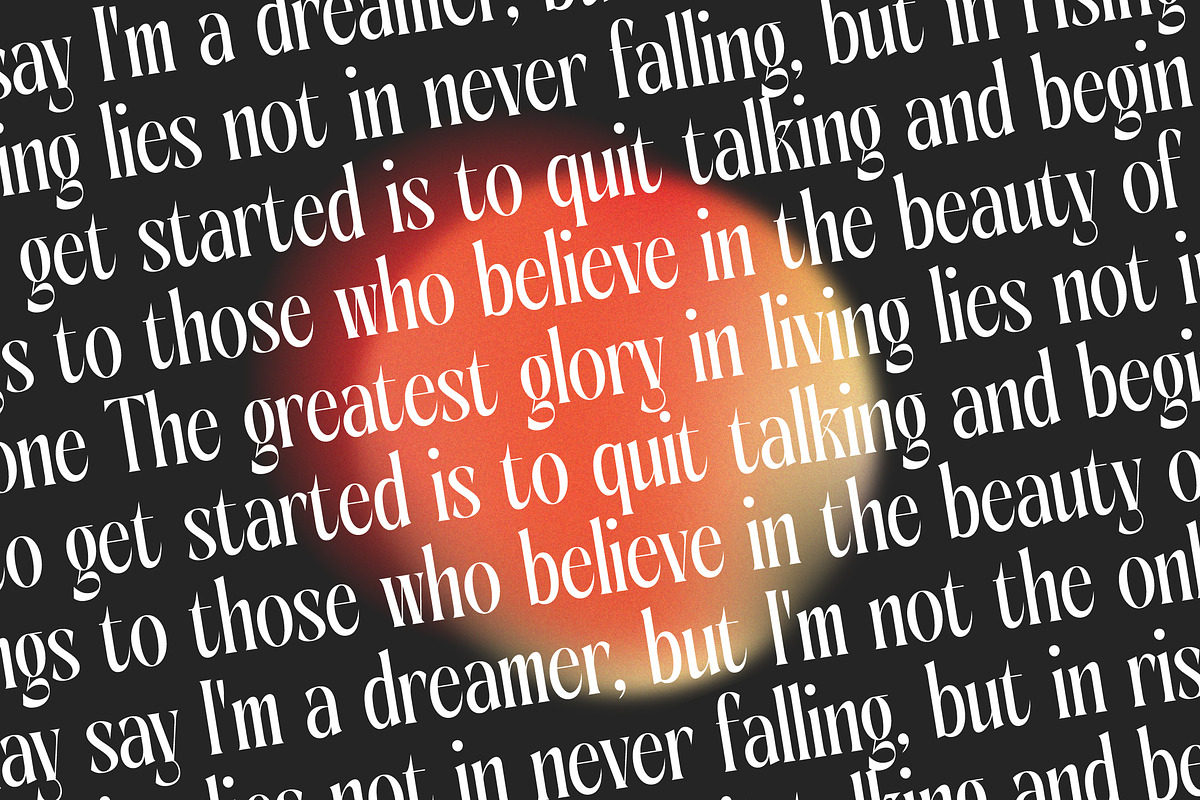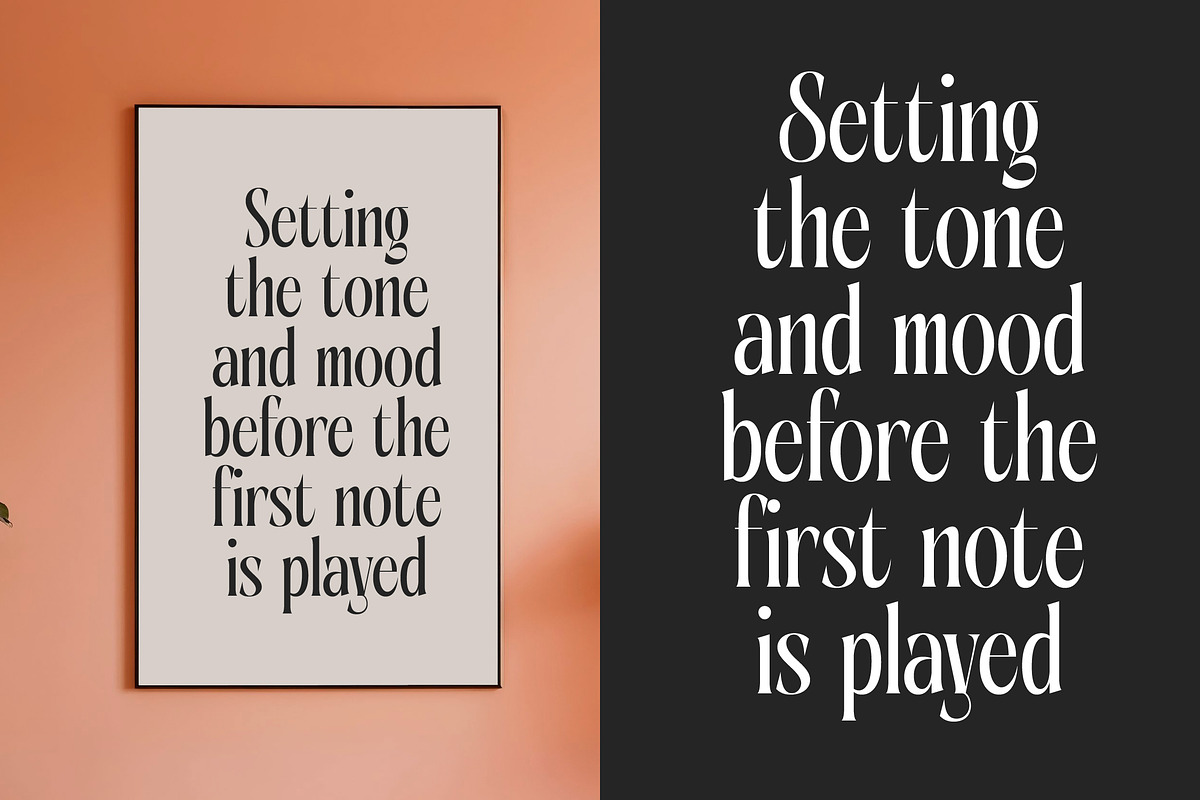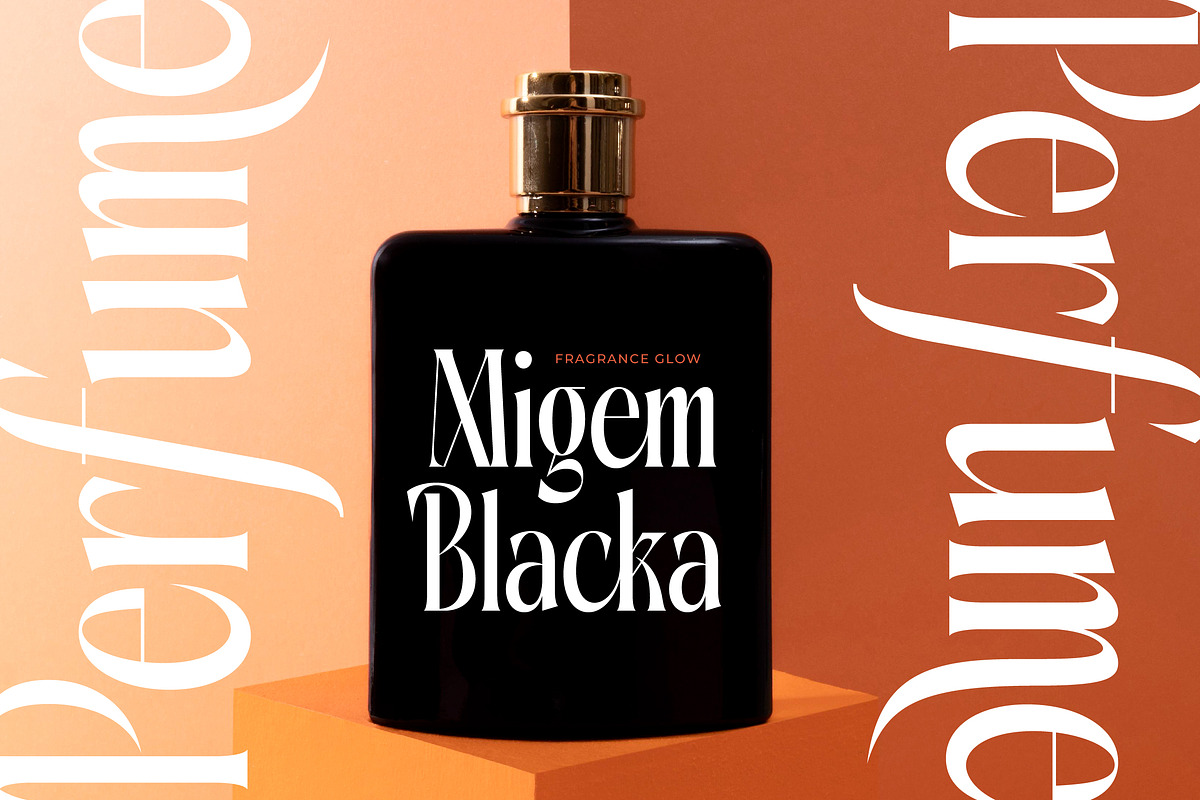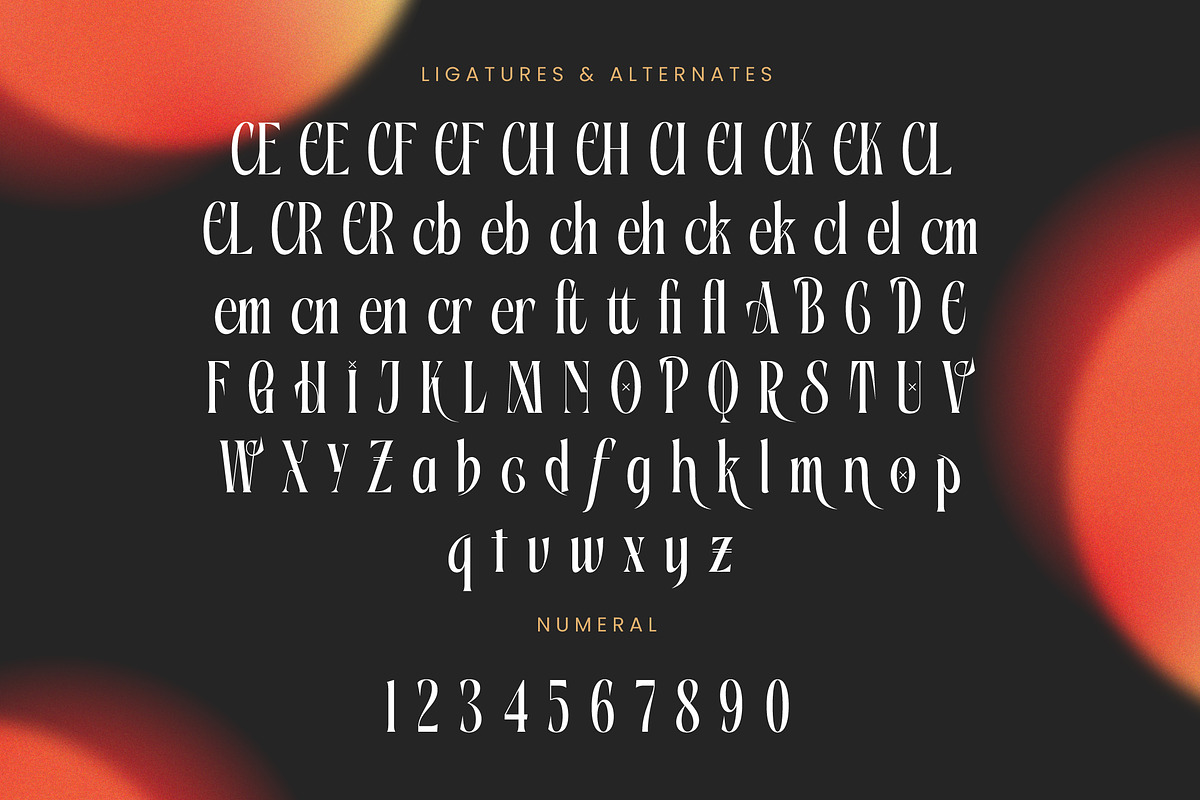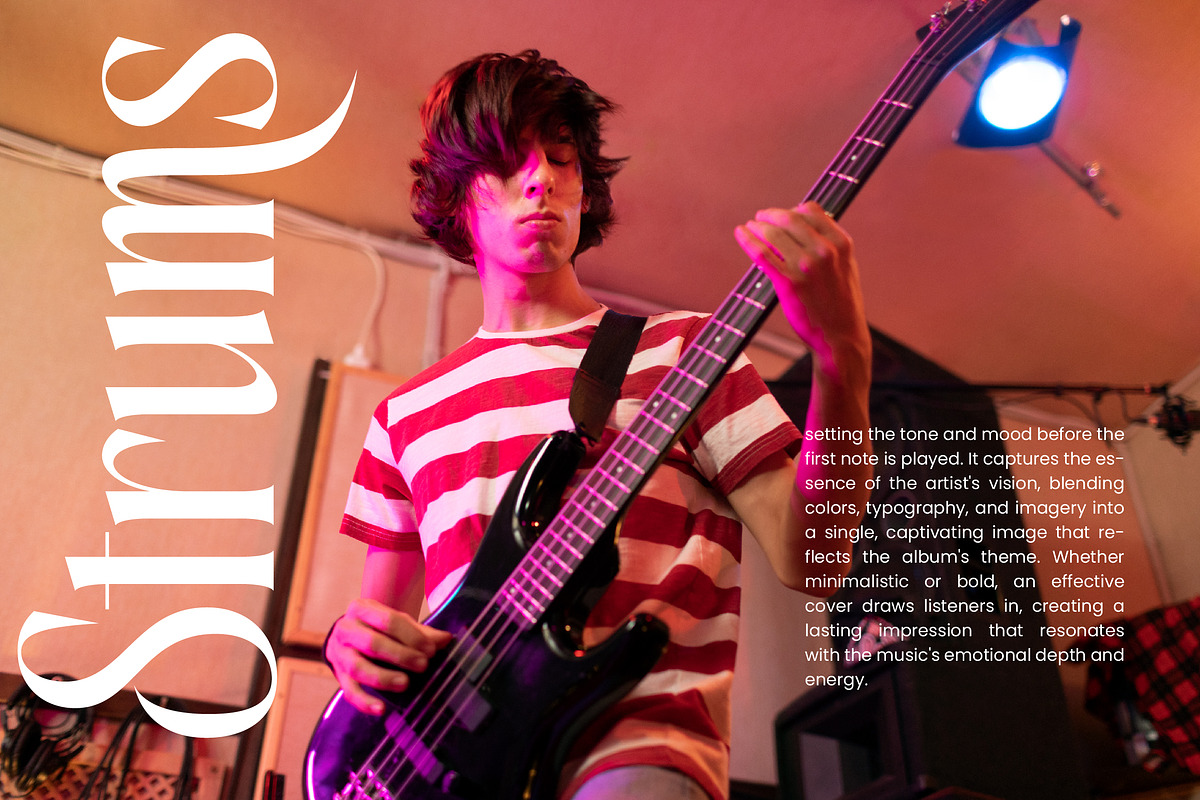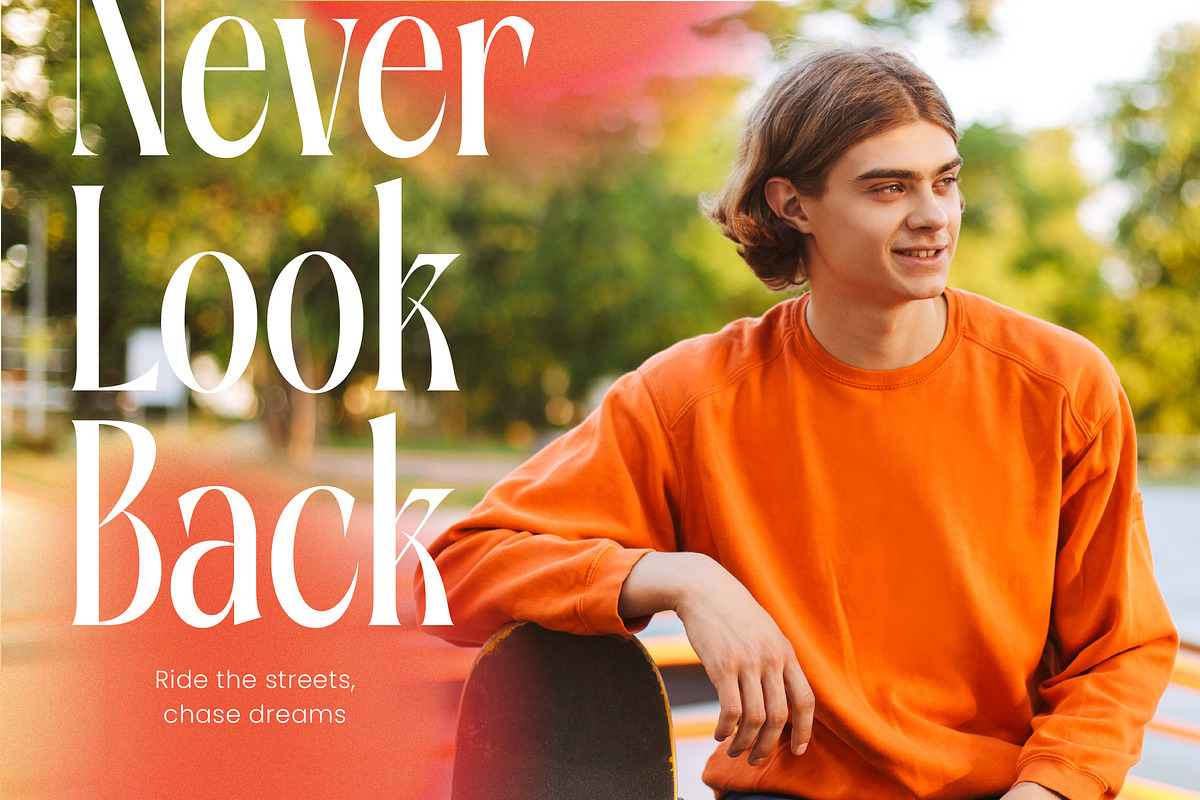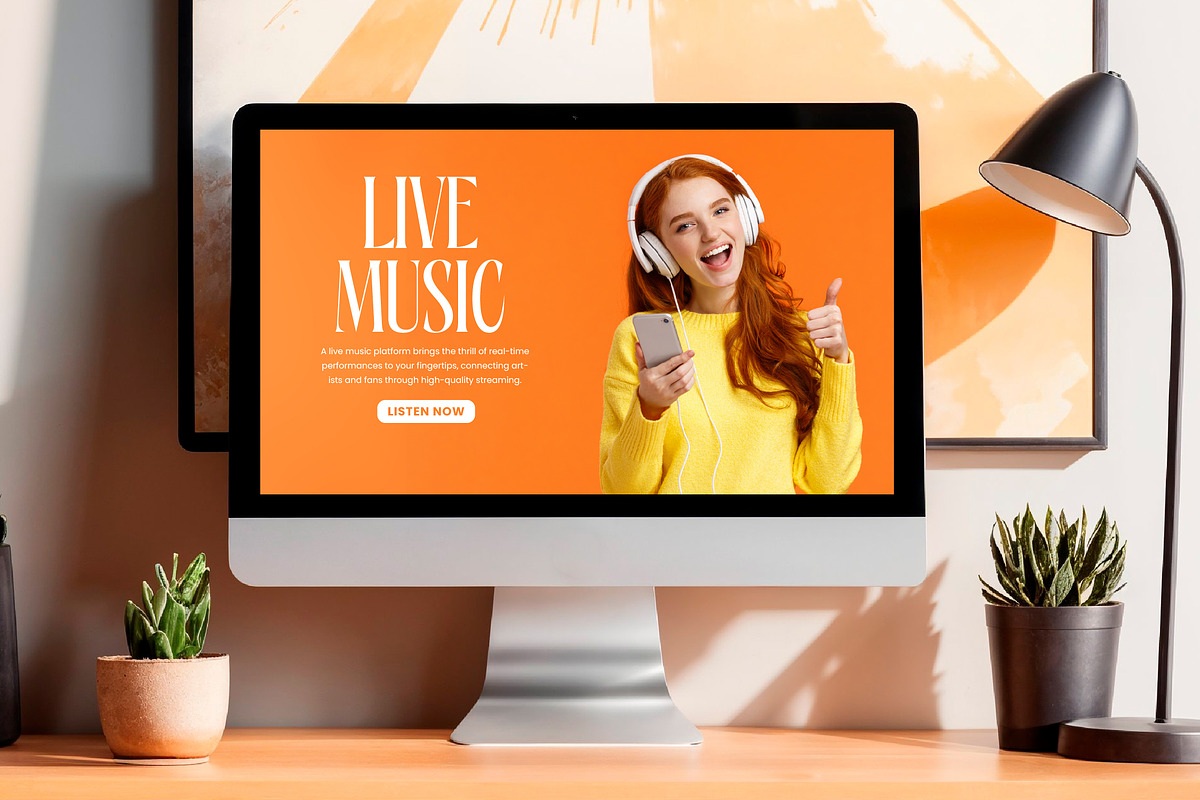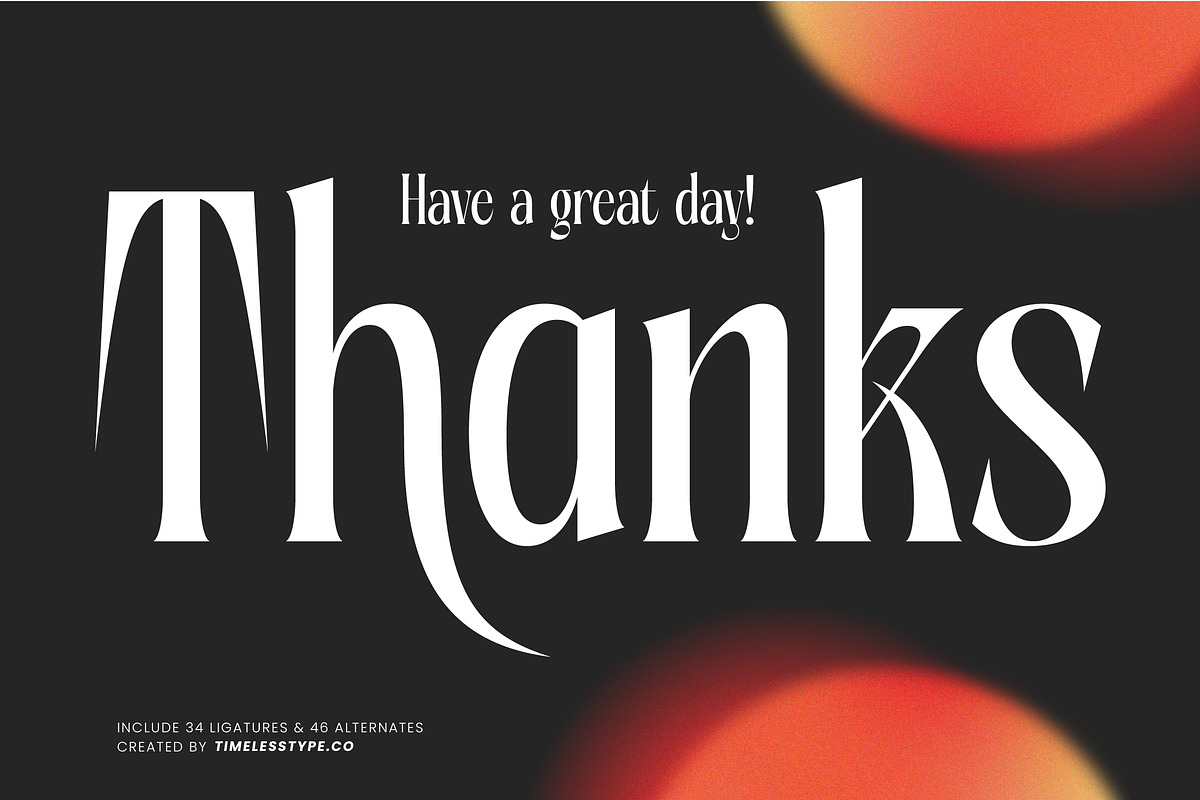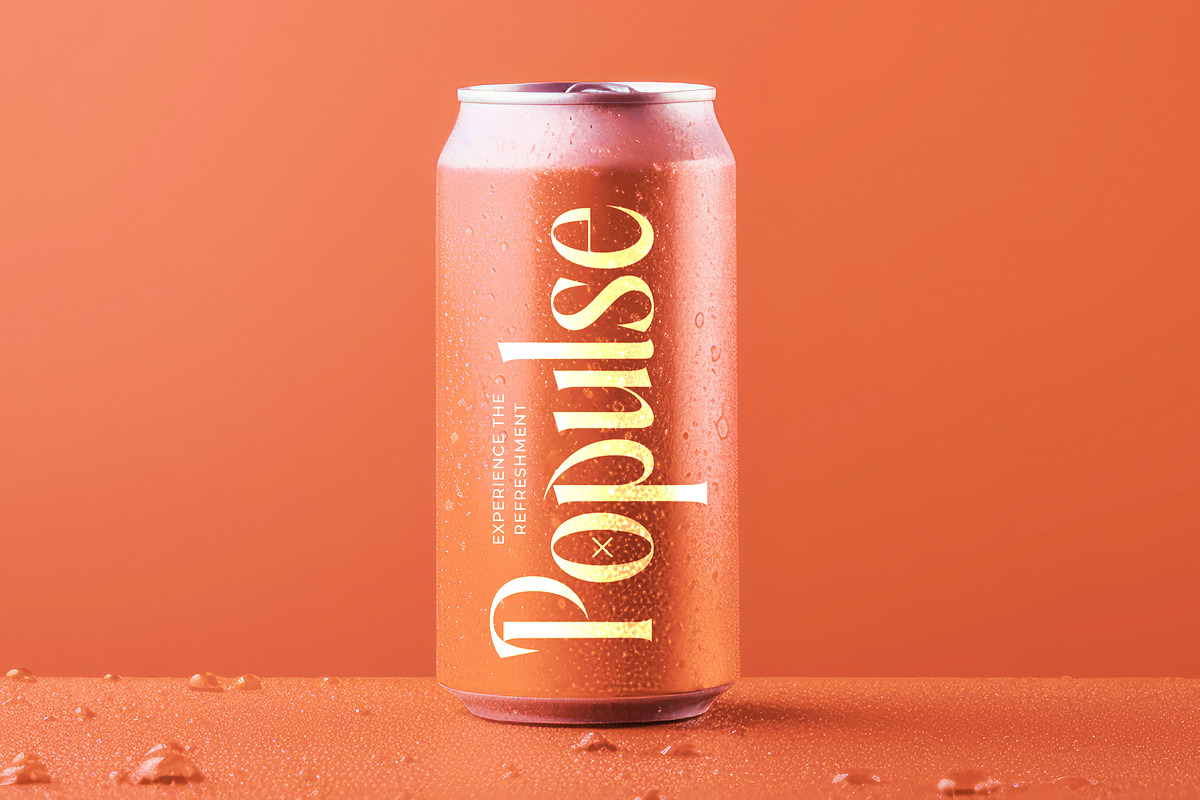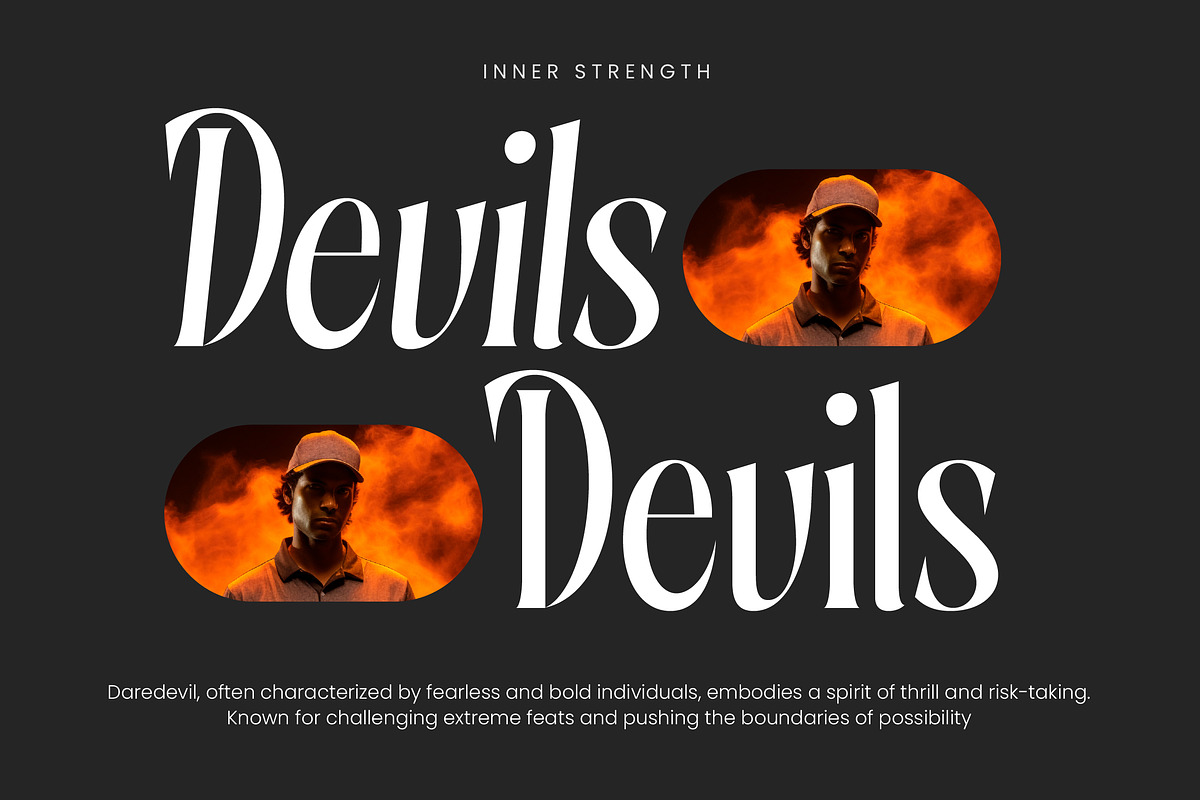
Aligner Tall Modern Serif Display
Elevate your creative narrative with the sophisticated allure of Aligner, a font that commands attention through its graceful proportions and timeless elegance. This typeface is crafted for those who seek to leave a lasting impression of refined beauty and uncompromising style in every project.
Drawing inspiration from the golden age of fashion editorial and the sharp precision of modern minimalism, Aligner bridges the gap between classic heritage and contemporary chic. Its tall, slender stems and delicate serifs evoke a sense of high-end verticality that transforms any layout into a piece of curated art.
This modern serif display is engineered to deliver maximum branding impact while maintaining the delicate balance of luxury typography. With its high-contrast serif design, Aligner functions as a versatile editorial font that speaks with a voice of quiet confidence and sophisticated grace for premium audiences.
Perfectly aligned with the current modern serif trend, Aligner stands at the forefront of character-driven typography that designers are craving today. It satisfies the growing demand for editorial display fonts that offer both visual weight and poetic movement within a single, cohesive typeface package.
Whether you are working on a high-end logo design or cohesive branding projects, Aligner provides the perfect foundation for editorial layouts, premium packaging, bespoke wedding invitations, and high-street fashion lookbooks. It brings a touch of couture to every digital and print application effortlessly.
Beyond its striking appearance, the font is packed with creative flexibility including 34 ligatures and 46 alternates that allow for custom typographic flourishes. It also features a full set of swashes, multilingual support, and international characters to ensure your message reaches a global audience with seamless beauty.
- Ligature 34 Alternate 46